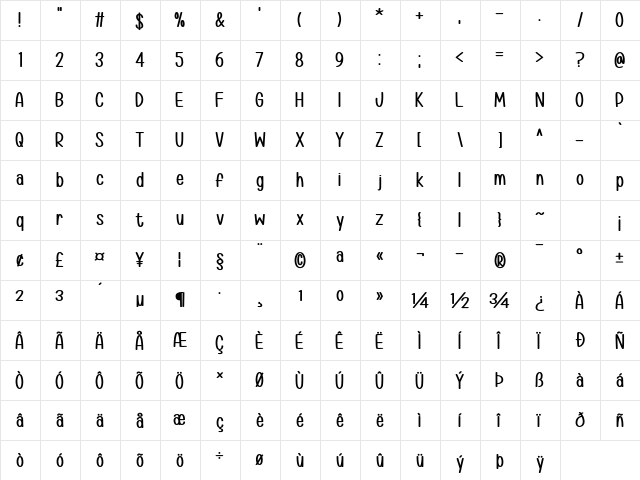
Hwyl fawr Hello Regular
Design Context for Hwyl fawr Hello Typeface
Hwyl fawr Hello offers clean, dependable letterforms without strong stylistic allegiance, making it a practical choice for designers who need flexibility.